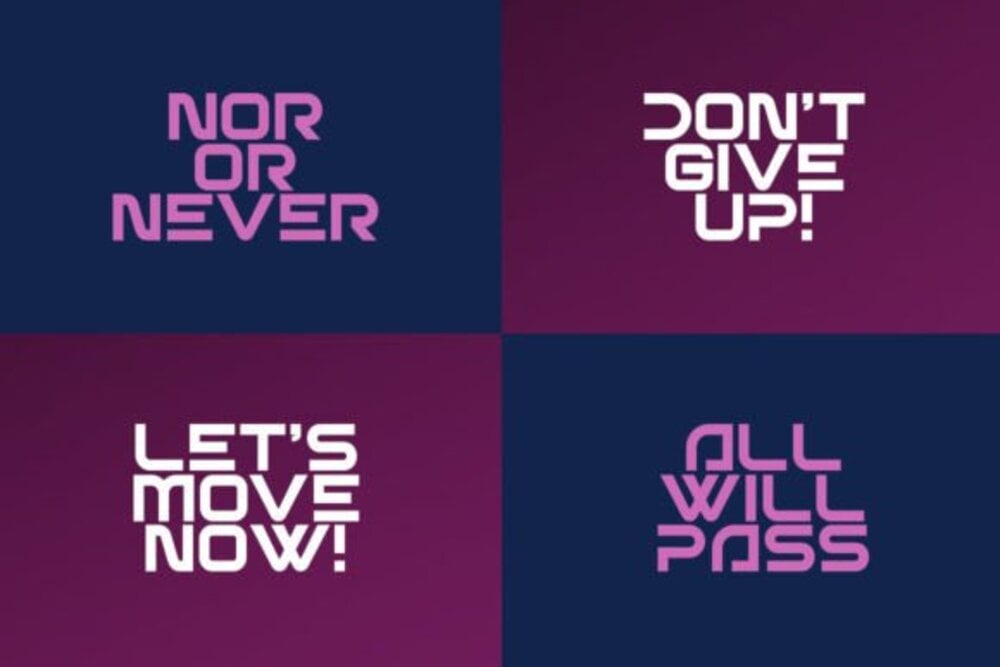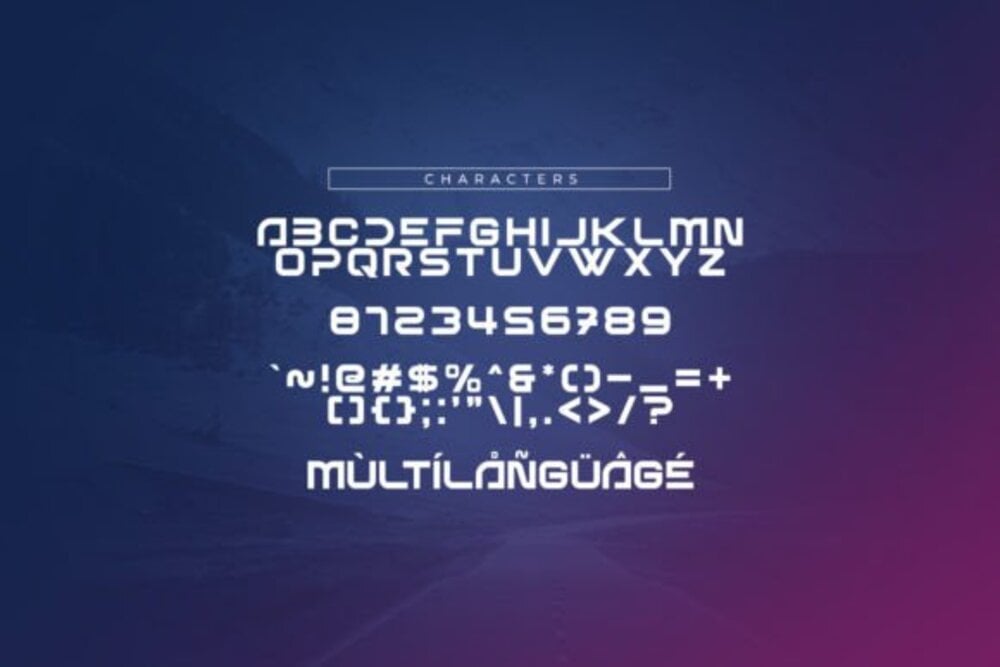
Airbeat Font
Airbeat Font is a sleek and modern typeface with a dynamic, futuristic edge. Its smooth curves and sharp angles create a sense of motion and innovation, making it perfect for tech branding, sports designs, or digital projects. Airbeat stands out with its bold, clean lines, delivering a contemporary style that conveys energy, confidence, and a cutting-edge aesthetic.